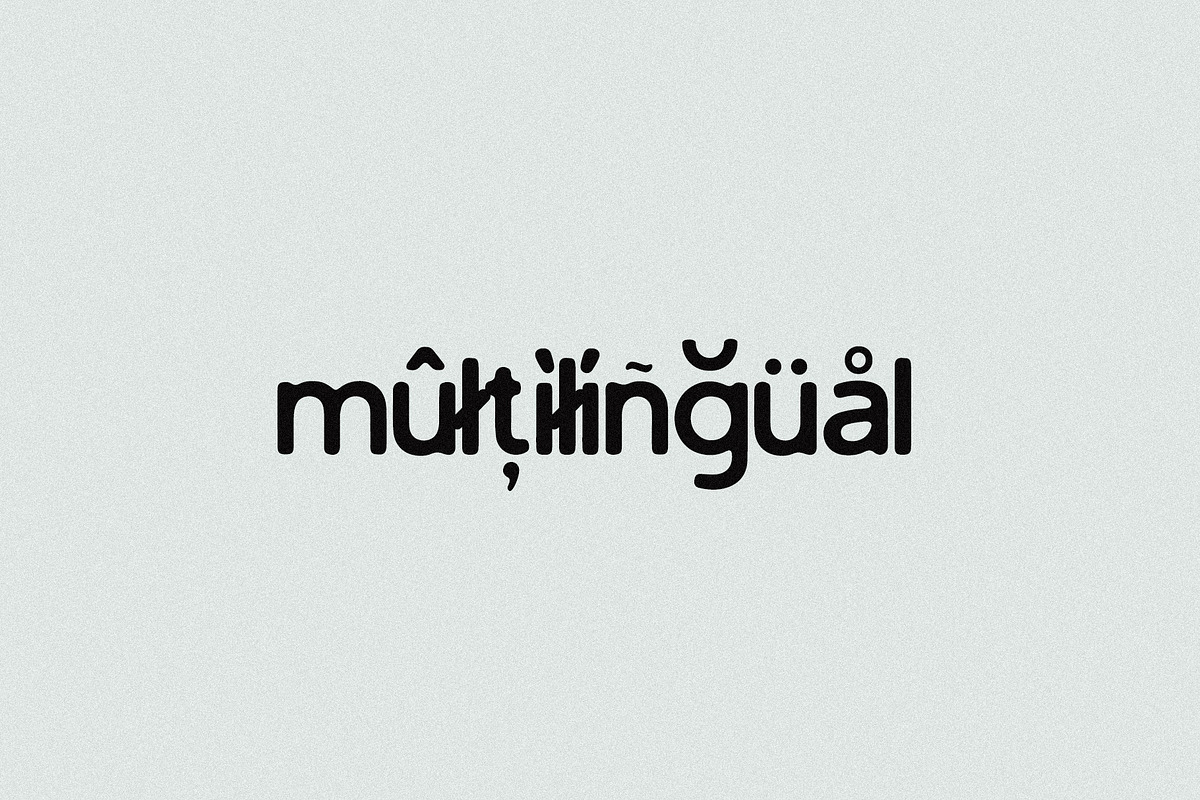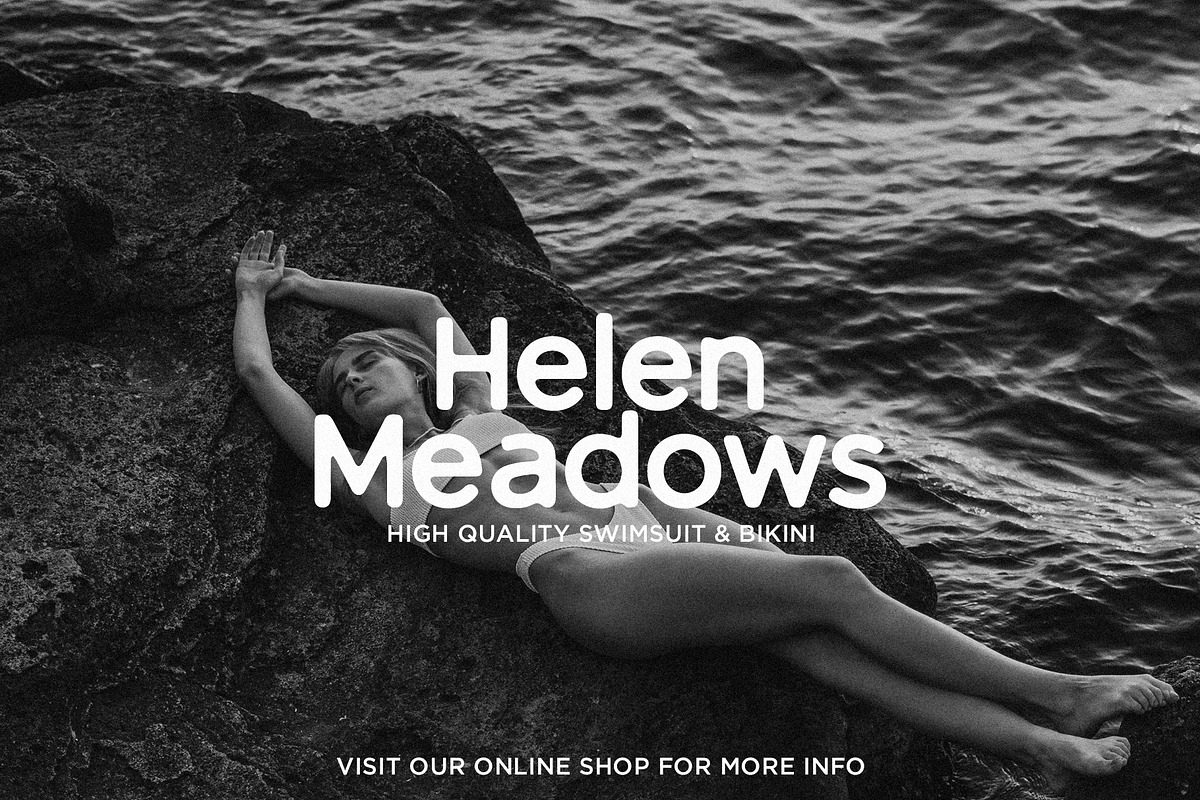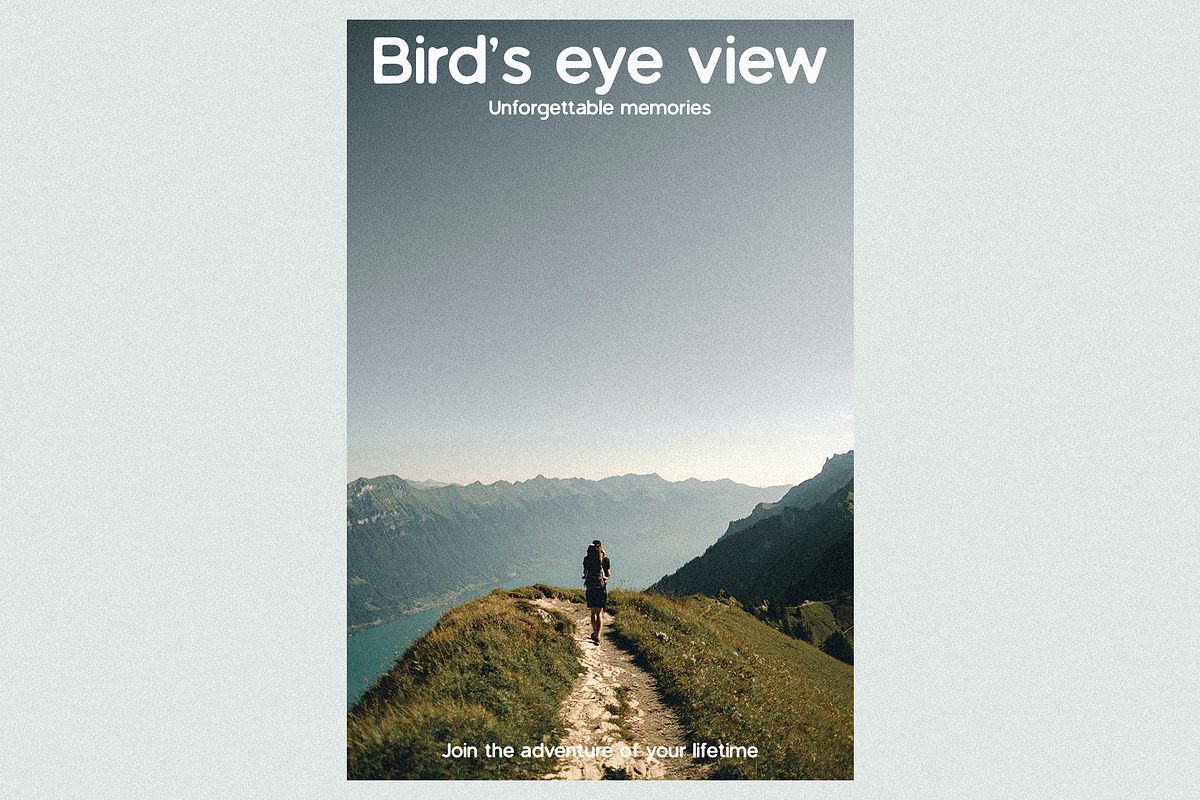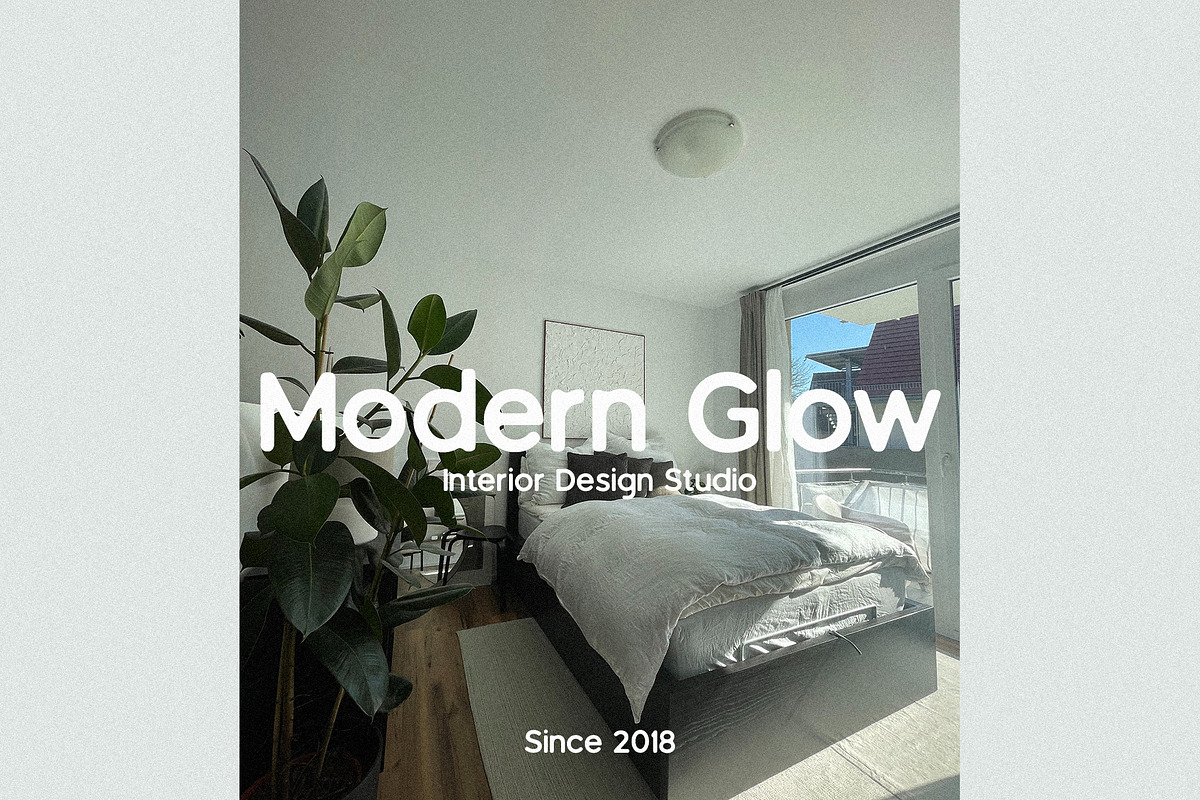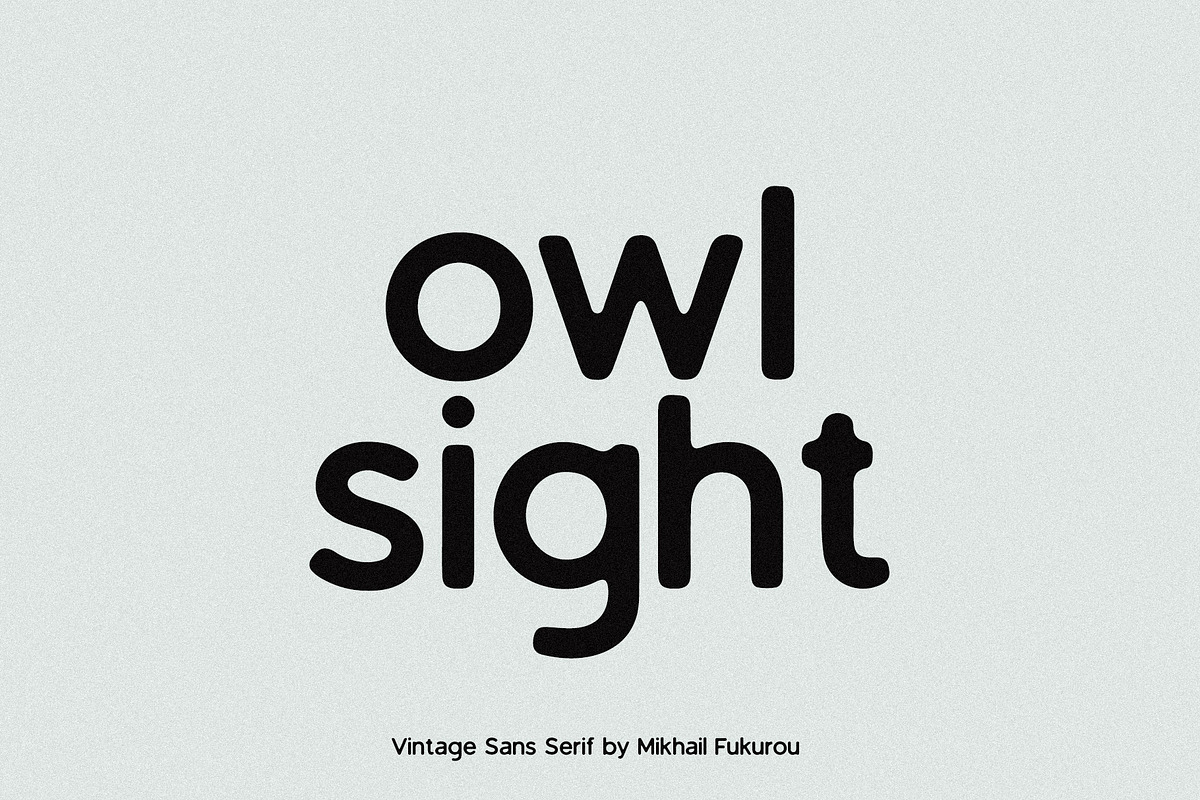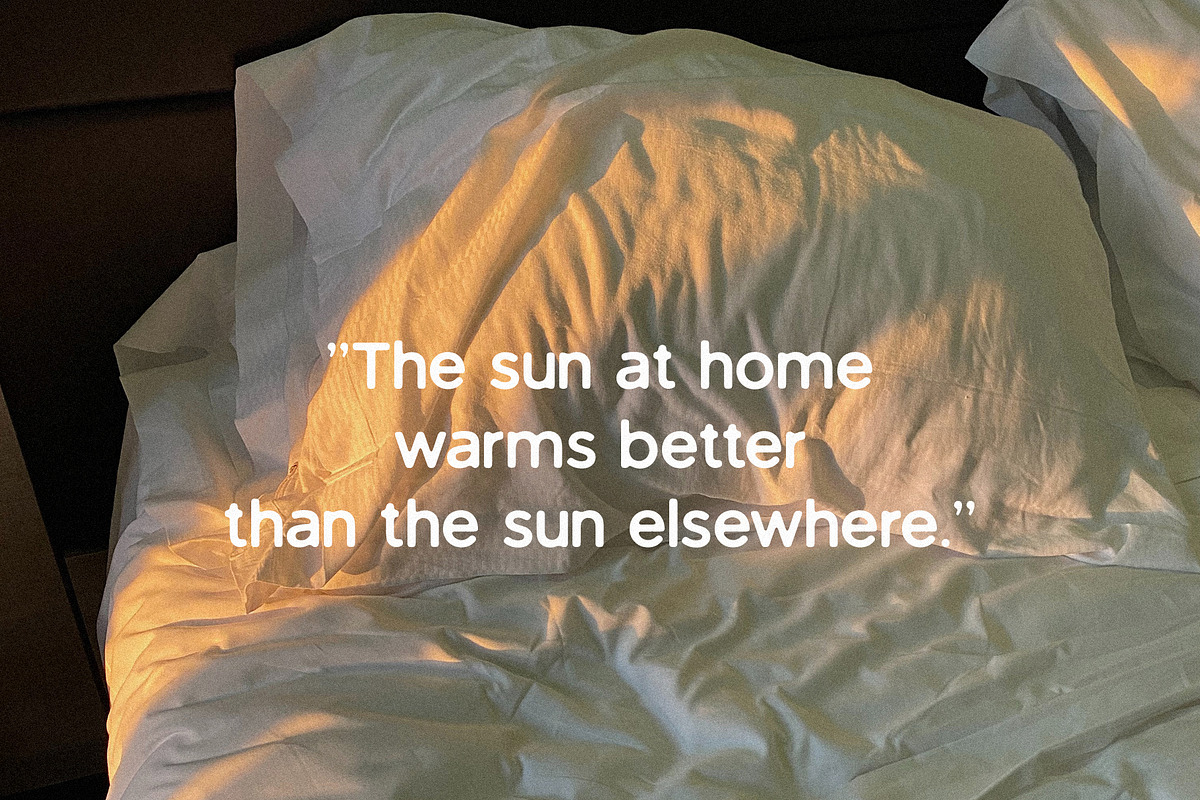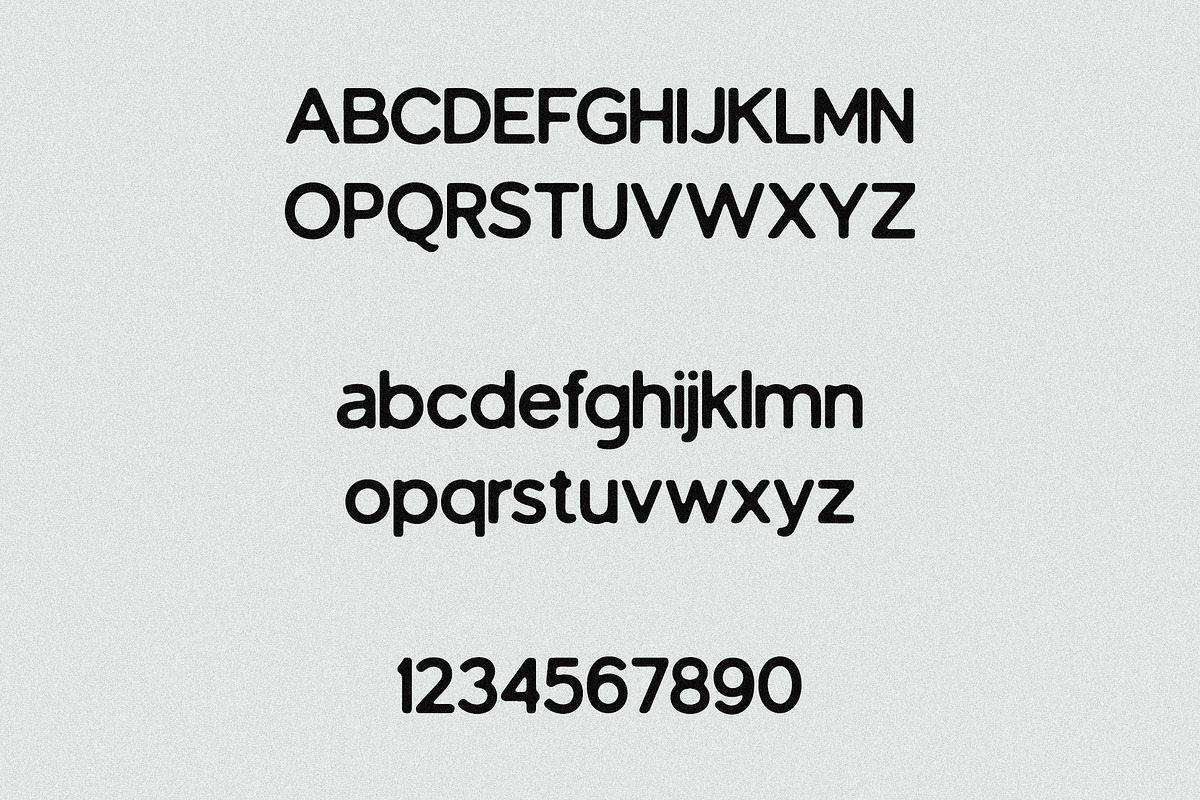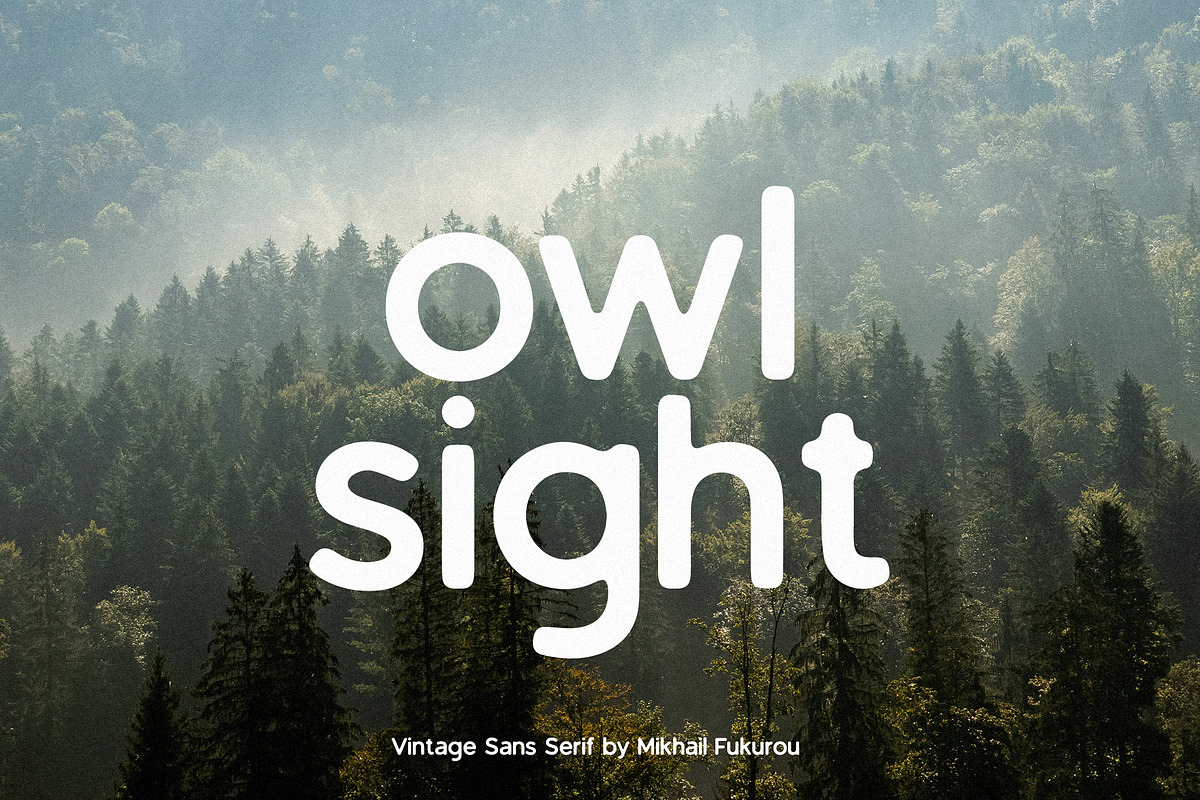
owl sight - vintage sans serif
Owl Sight is characterized by its vintage aesthetic and clean, sans-serif design. It likely features classic elements that evoke a sense of nostalgia and timelessness. Owl Sight name suggests a focus on clarity and visibility, while the vintage style indicates a retro-inspired look. Overall, this font is likely to be versatile and suitable for a variety of design projects that require a touch of classic & vintage charm.
Owl Sight features:
- Letters
- More than 250+ glyphs